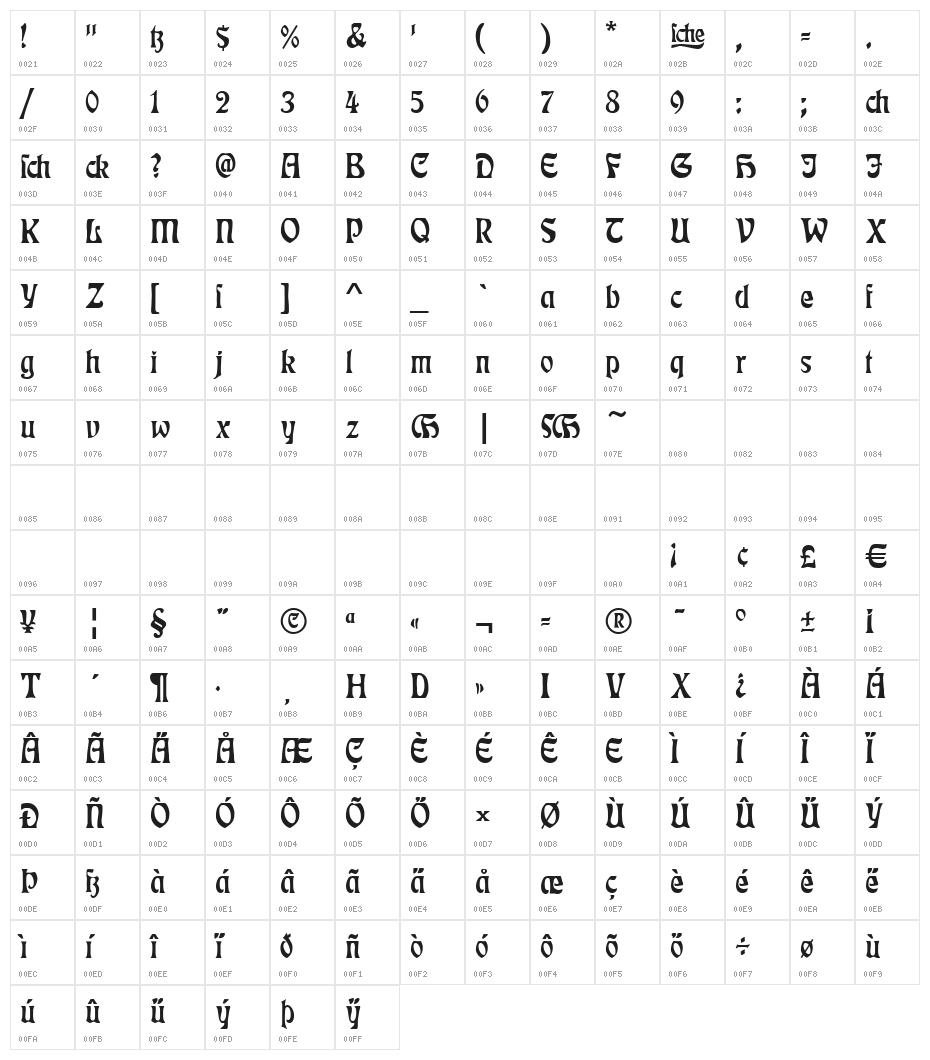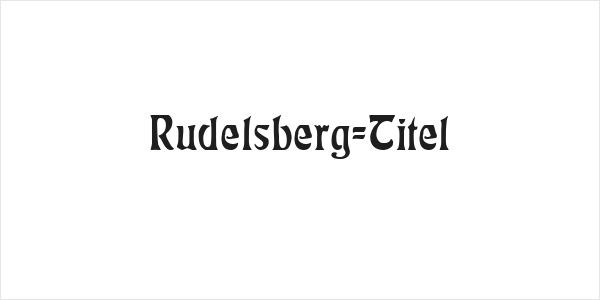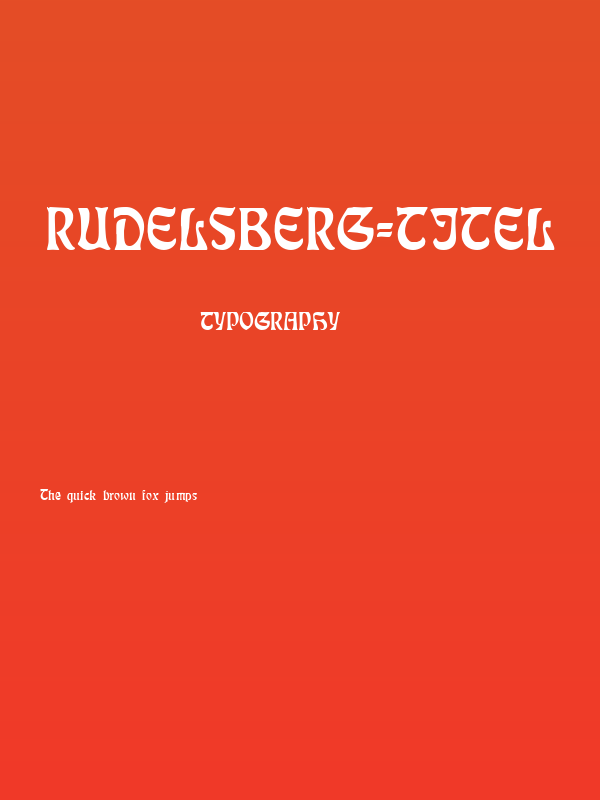
Rudelsberg-Titel Font
Rudelsberg-Titel Description
This font features a bold and dramatic style with a strong blackletter influence. The characters are intricately designed with sharp edges and pointed serifs, giving it a medieval and gothic appearance. The uppercase letters are particularly striking, with a sense of grandeur and formality. The lowercase letters maintain the same stylistic elements, ensuring consistency throughout. The numerals and special characters are equally ornate, making this font suitable for projects that require a touch of elegance and historical flair. The overall design is both decorative and functional, making it ideal for titles and headings.
| Overall Style | Gothic, Medieval |
| Use Case | Headlines, Logos, Decorative text |
| Proposed Projects | Ideal for historical-themed designs, book covers, posters, and branding that requires a gothic or medieval touch. |